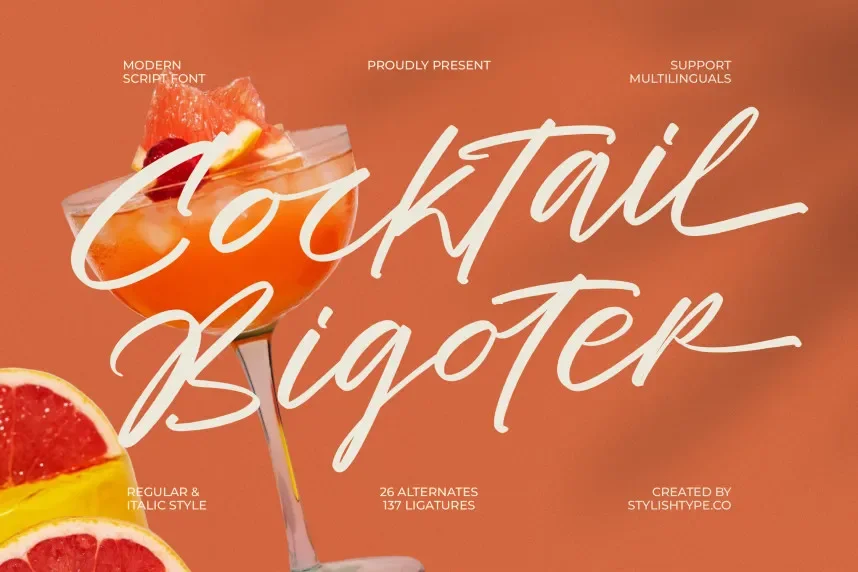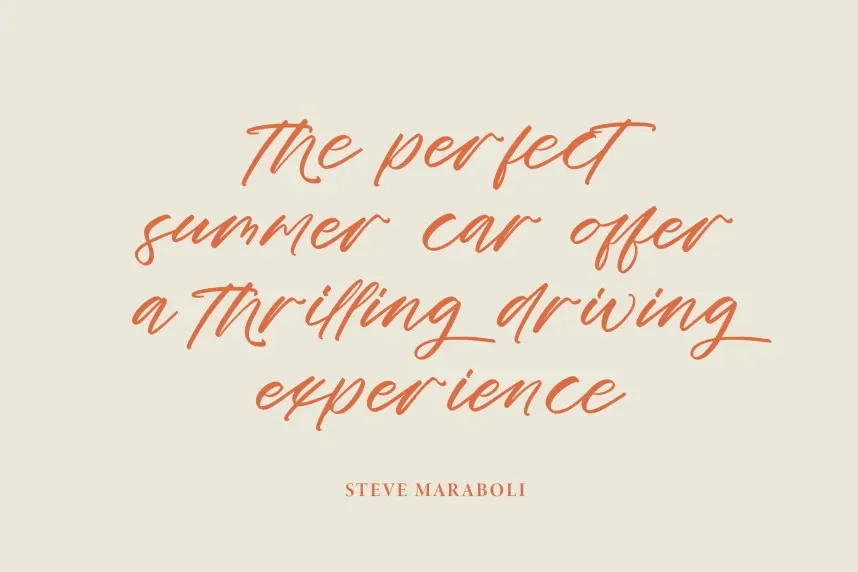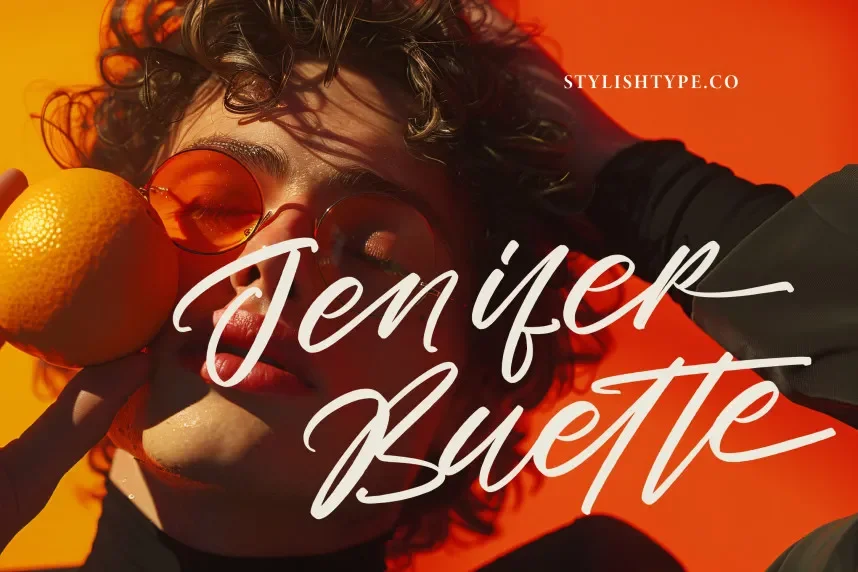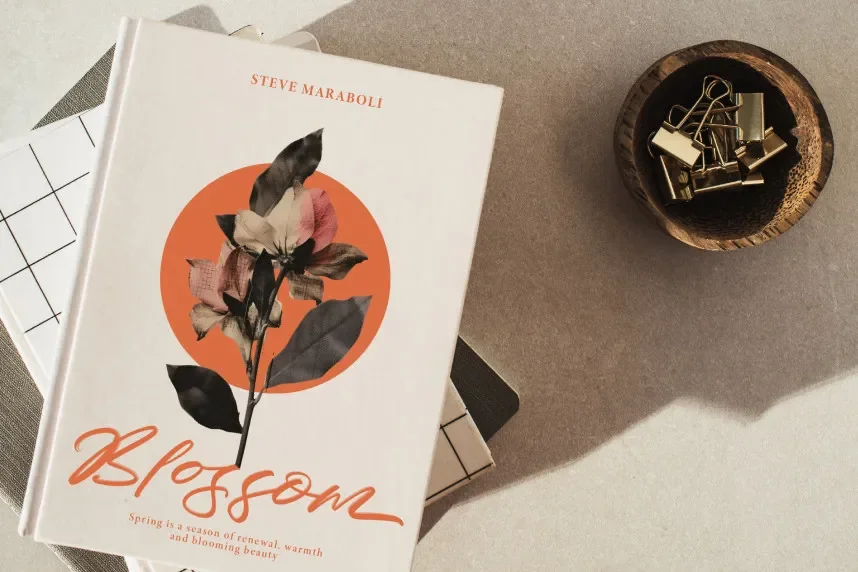
Cocktail Bigoter Font is a modern script typeface designed for smooth, connected lettering in branding and decorative layouts. Designers often need script fonts that feel fluid without sacrificing clarity. Cocktail Bigoter addresses this with controlled curves and clean joins.
This font belongs to the script category. Its letterforms feature gentle stroke contrast, rounded terminals, and consistent connections between characters. The slant angle remains steady, which helps readability across logos and short phrases.
Cocktail Bigoter is suitable for logo design, event invitations, packaging, restaurant branding, and social media graphics. It pairs best with a neutral sans-serif for body content or supporting text.